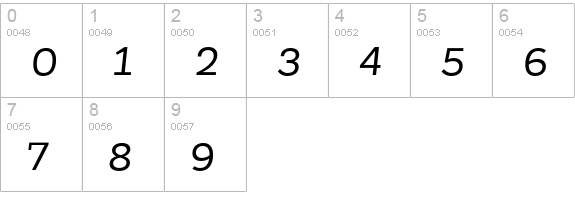
Newslab Italic Font Details
Newslab Italic is a distinctive, italic variant in the Newslab typeface family \xE2\x80\x94 well suited to design and typography projects.
Newslab Italic is a modern and elegant font that exudes sophistication and style. Its sleek and slender letterforms make it perfect for adding a touch of class to any design project. The italicized slant adds a dynamic and contemporary flair to the overall look. What sets Newslab Italic apart is not just its aesthetic appeal, but also the fact that it is available for free download at FontsMarket.com. Yes, you read that right - this high-quality font can be yours at no cost, making it a valuable addition to your font collection without breaking the bank. Whether you're working on a branding project, editorial design, or any other creative endeavor, Newslab Italic is sure to elevate your work with its refined and stylish appearance. Download it for free today and unleash your creativity with this versatile and eye-catching font.